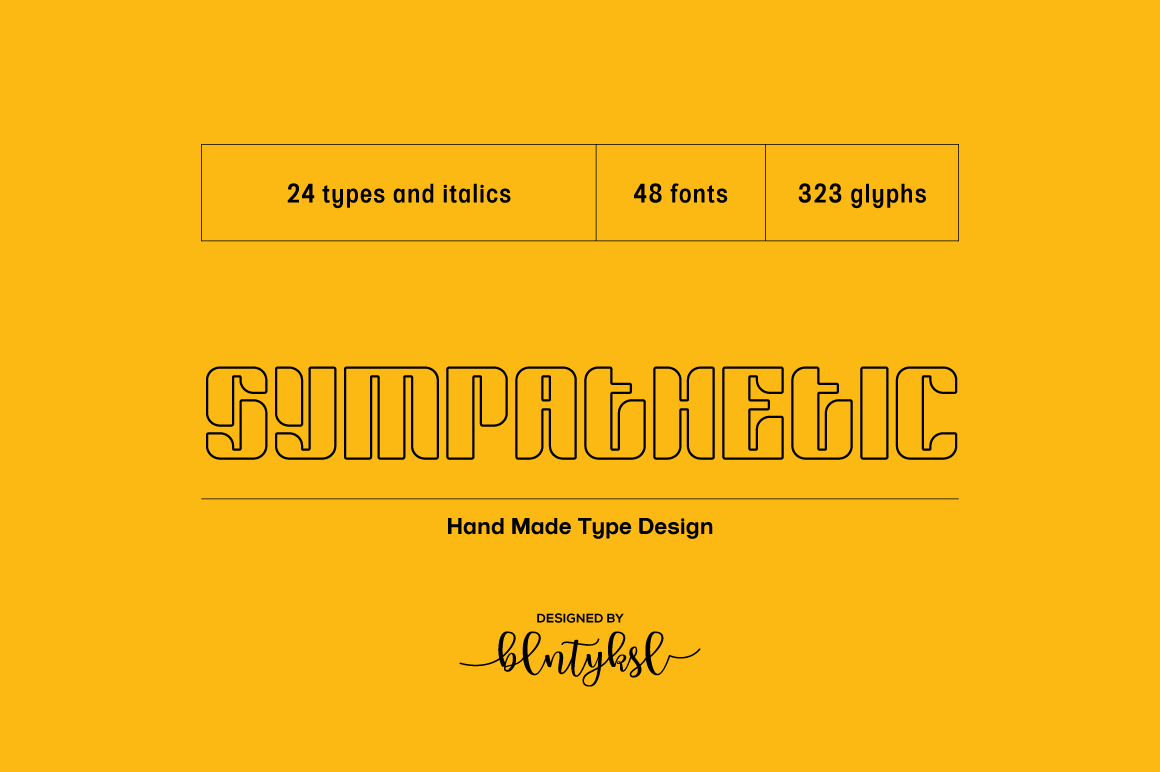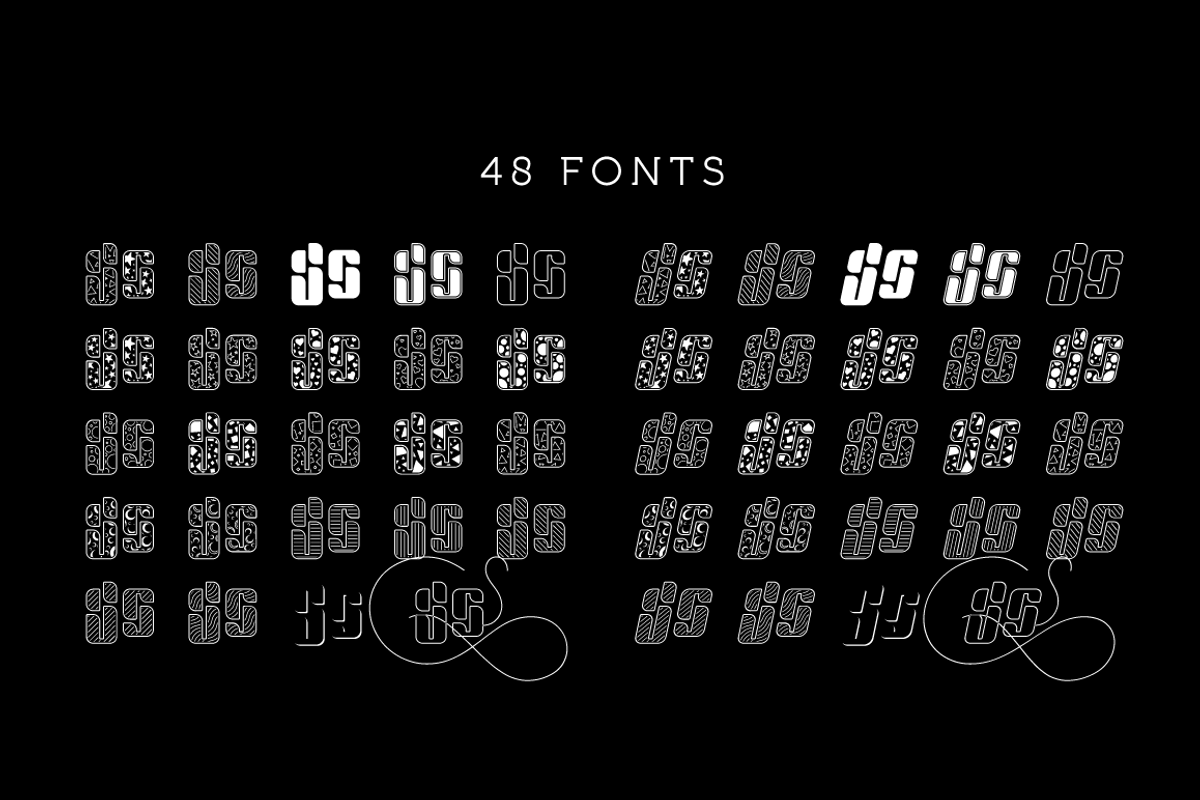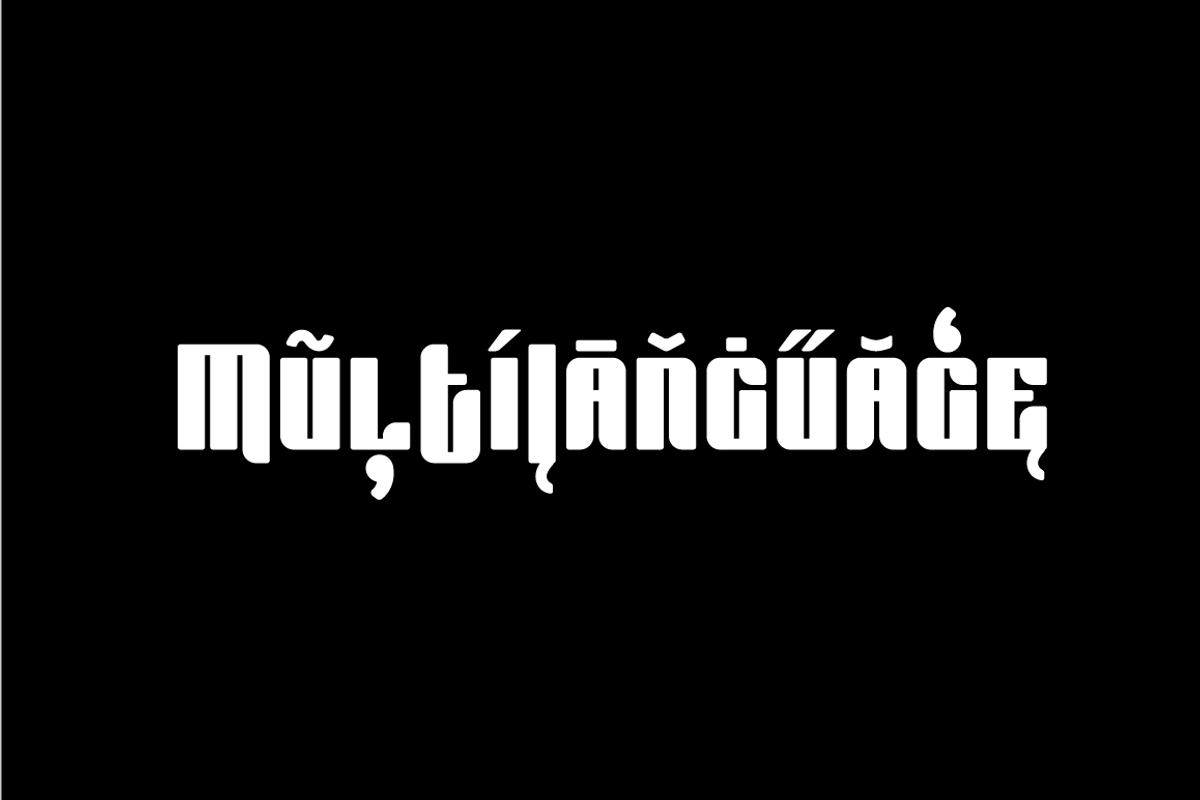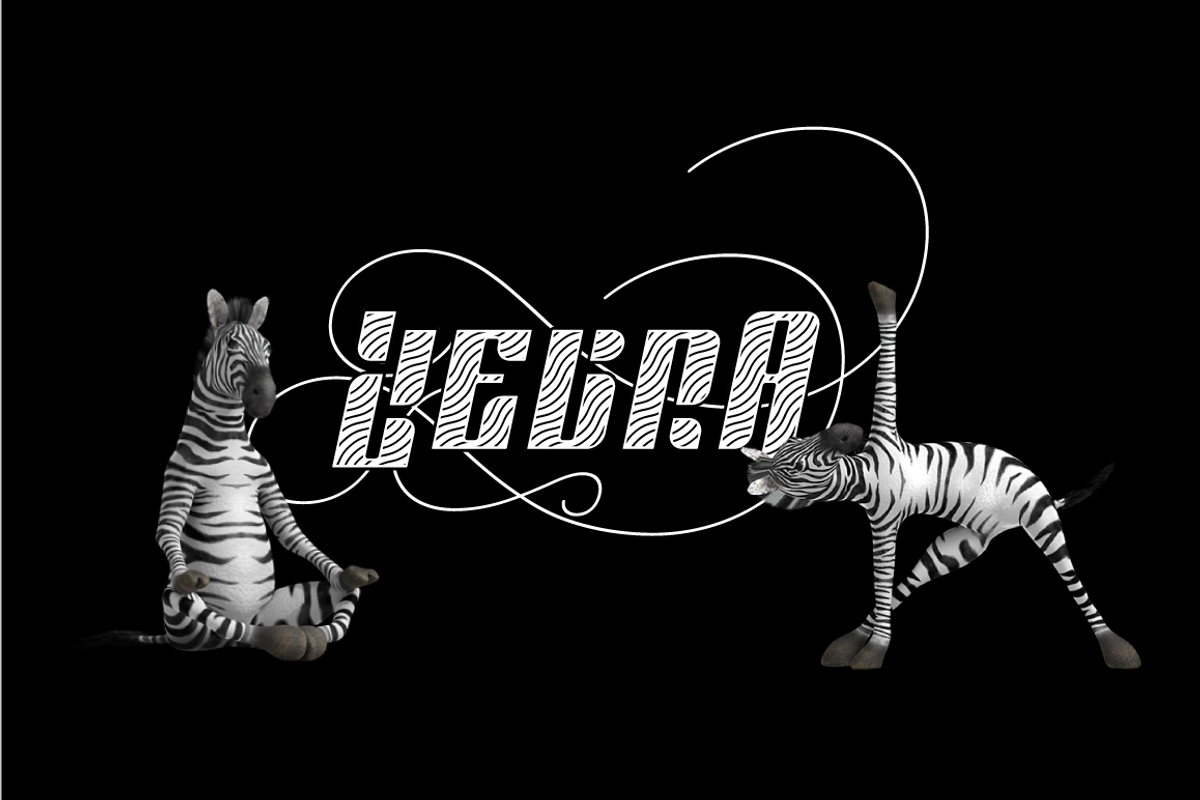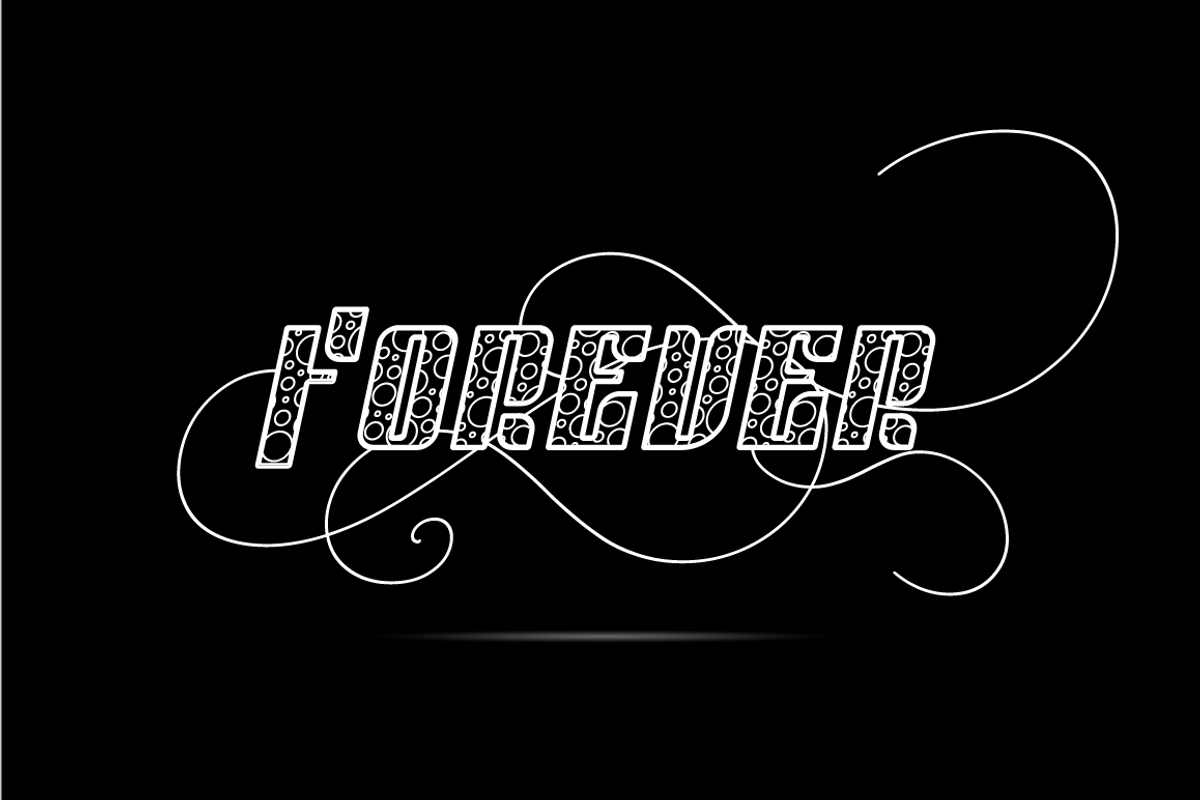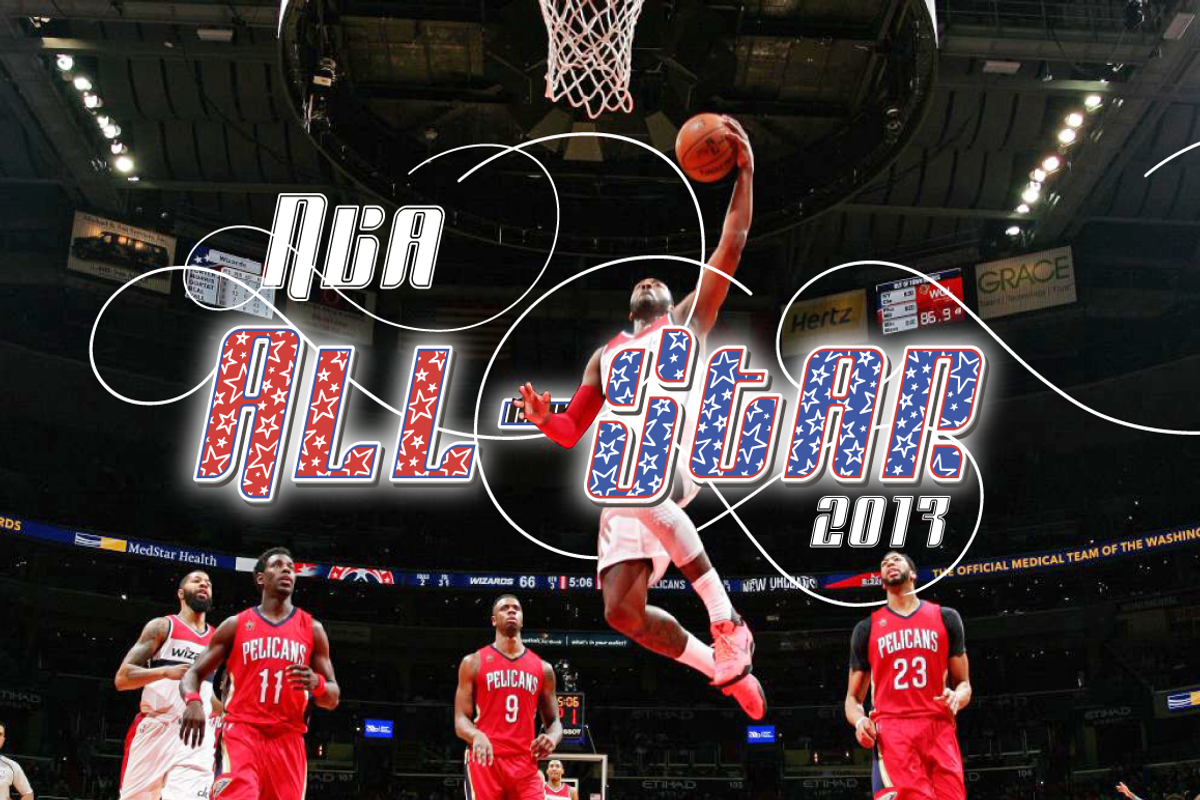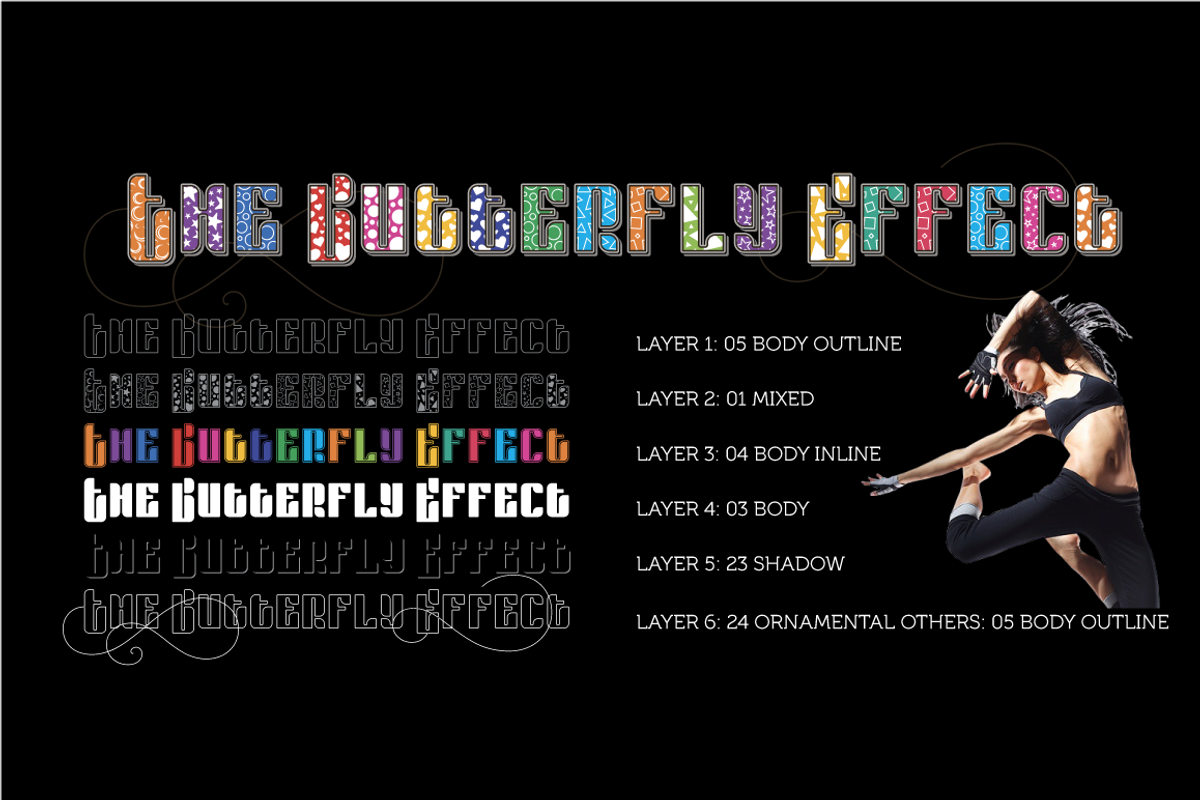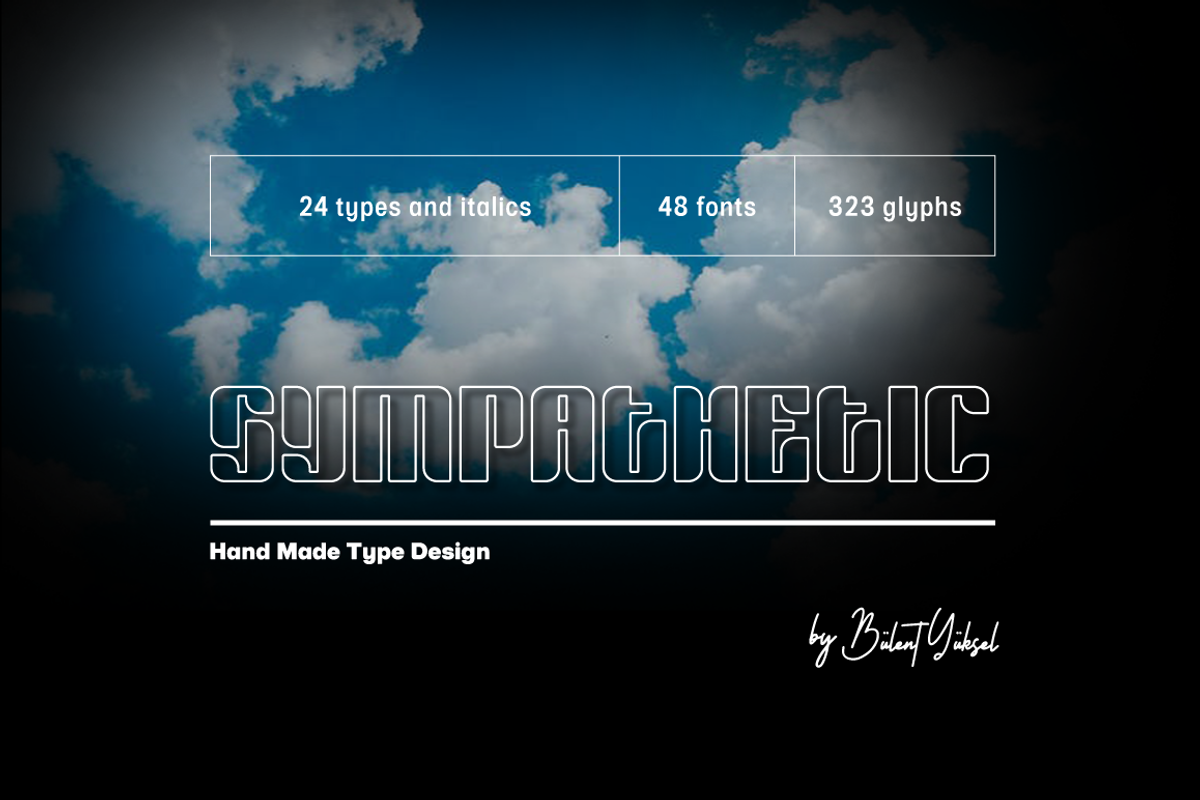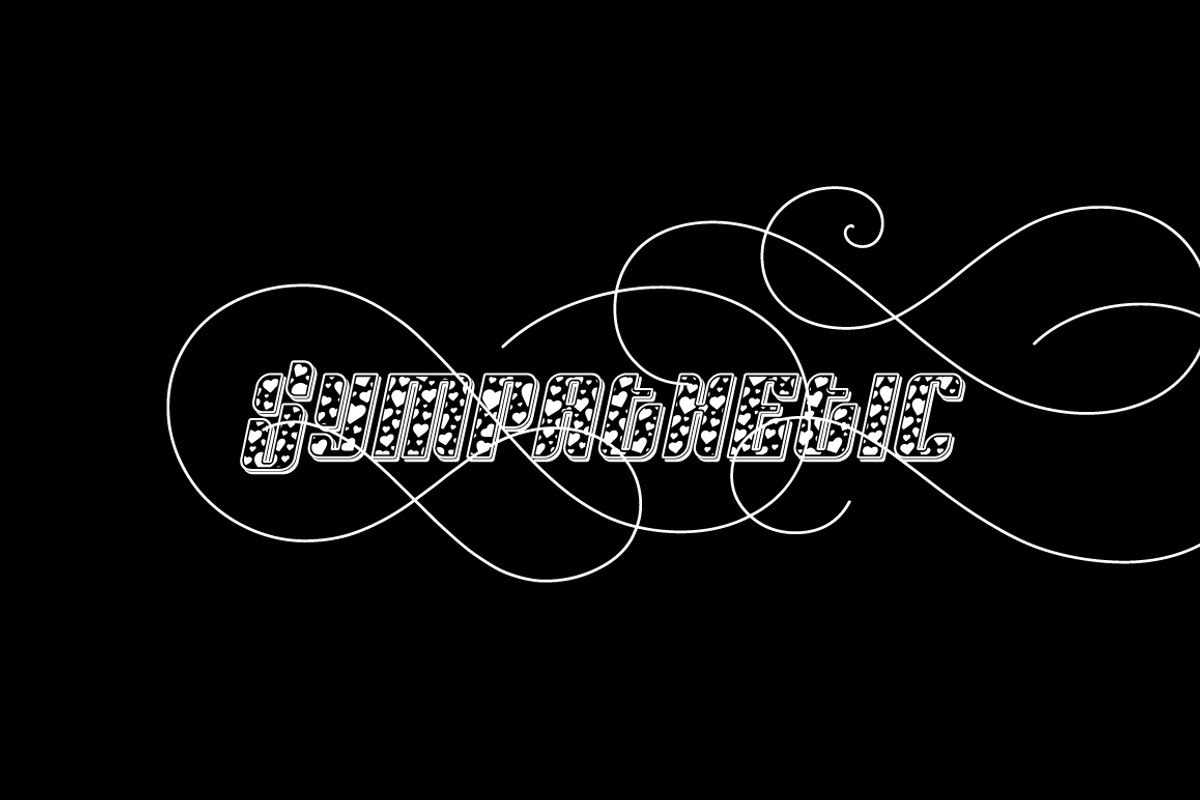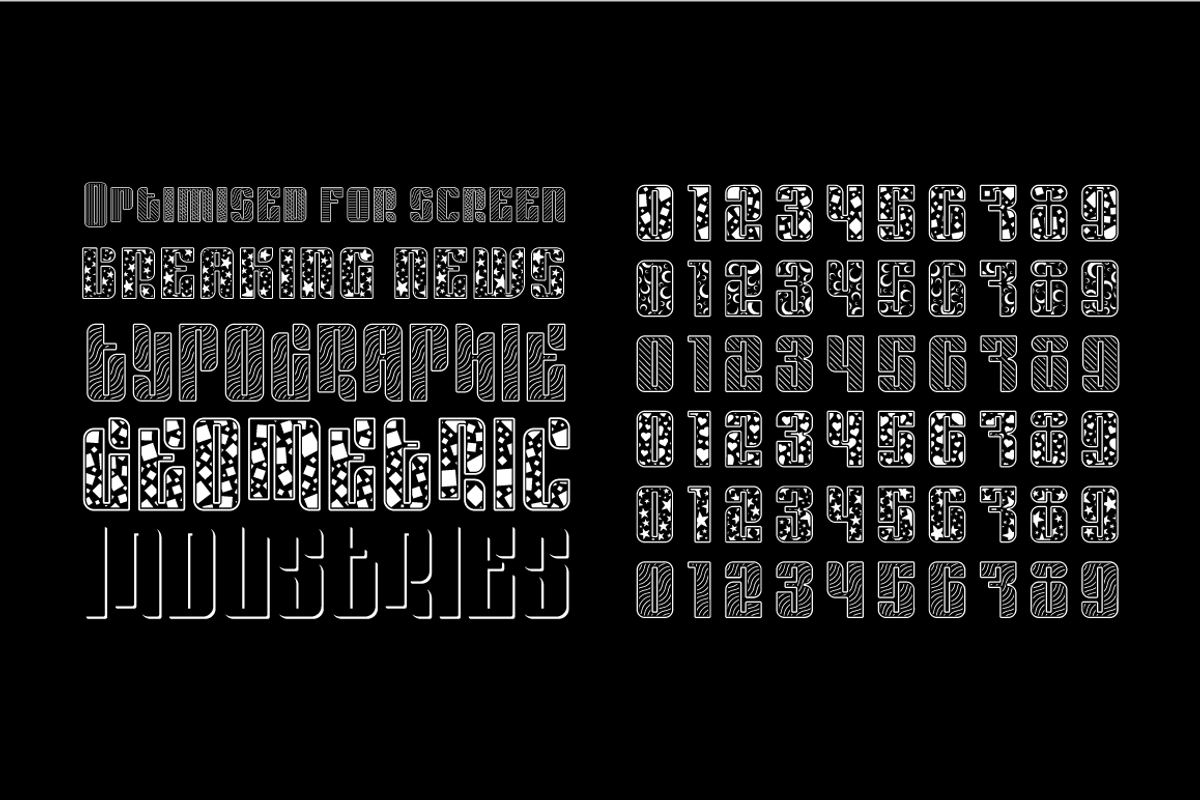
Sympathetic Font
SYMPATHETIC "Sympathetic Font" multi-purpose use is an open designed font. It is possible to produce unlimited designs using this font.
"Sympathetic Font" is made up of 24 different forms. Hearts, square, triangle, circles, moon and stars, horizontal and vertical lines, sloping inner lines and wavy lines. Shading and decorations are also available.
Ideally suited for advertising and packaging, logo, branding, slogans and creative industries, poster and billboards as well as web and screen design.
You can create unique designs using fonts in layers.
TECHNICAL: Sympathetic provides advanced typographical support for Latin-based languages. An extended character set, supporting Central, Western and Eastern European languages, rounds up the family.
The designation “Sympathetic” 24 different forms and italics total 48 types. The family contains a set of 321 characters.
Stylistic Alternates, Localized Forms and Old Style Figures just one touch easy In all graphic programs.
Sympathetic is the perfect font for web use.